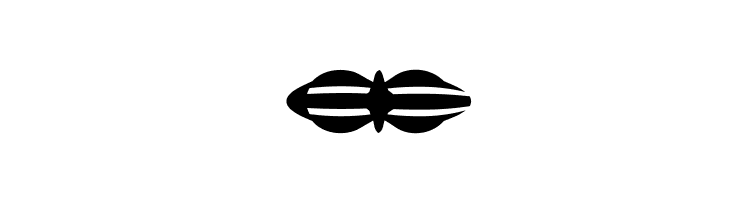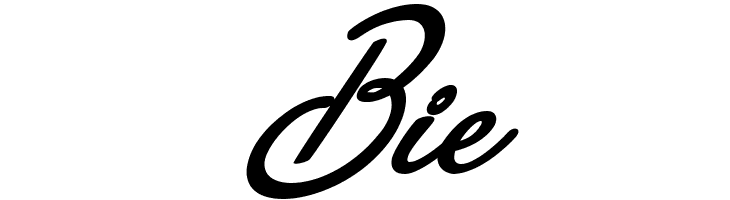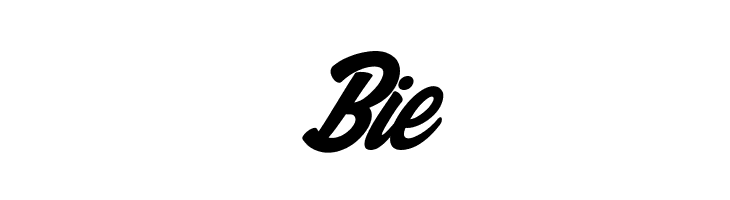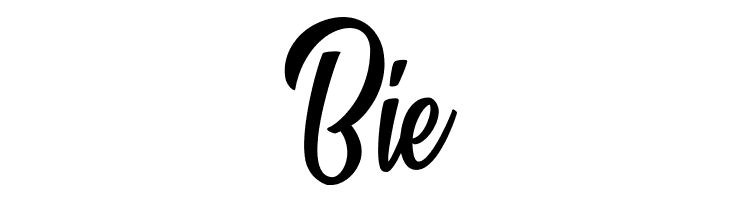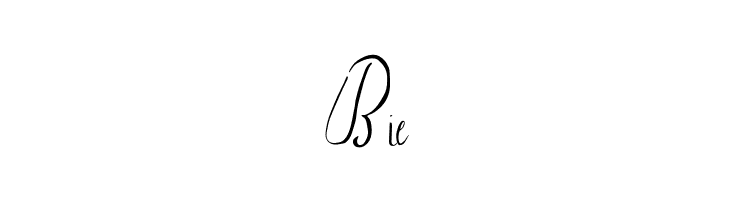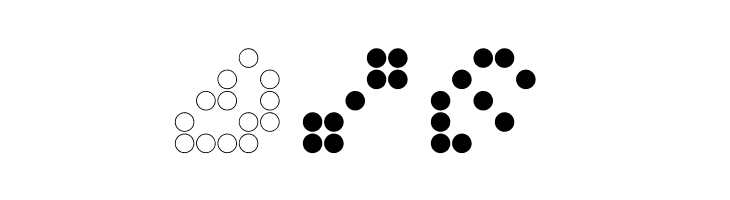
( Alternika )
An artistic and decorative font with flowing, interconnected strokes.
( Anigma New Media - www.anigma.fsnet.co.uk/an/anigma-fonts.html )
A bold, decorative font with intricate, interconnected letterforms.
( Billy Argel - billyargel.com/ )
A graceful and elegant script font with flowing, interconnected letters.
( Billy Argel - billyargel.com/ )
A bold, cursive font with interconnected letters and a modern script style.
( Billy Argel - billyargel.com/ )
A bold, cursive font with interconnected letters and a handwritten style.
( Chequered Ink - chequered.ink/ )
A bold, rounded, and interconnected font with a modern, digital aesthetic.
( Cioroianu Stefan Cristian )
A flowing, cursive font with elegant, interconnected characters.
An elegant script font with flowing, interconnected letters and a calligraphic style.
( Etherbrian - www.etherbrian.com/ )
A futuristic, decorative font with interconnected circular motifs and bold strokes.
( FOD - www.geocities.co.jp/siliconvalley/1286/ )
A decorative font with characters formed by interconnected circles, offering a playful and modern look.